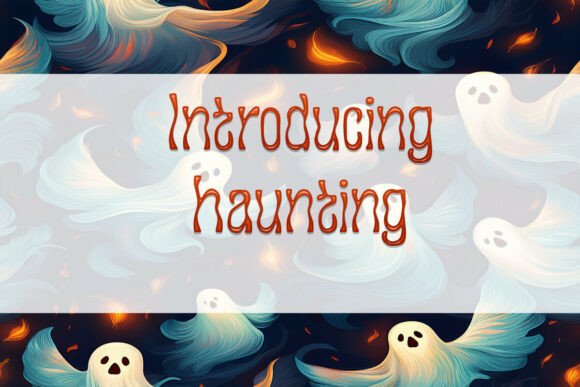
Unleash the Eerie Elegance: Discover the Transformative Charm of the “Haunting” Font
Are you a designer, crafter, or creative enthusiast looking to add a touch of uniqueness to your projects? Look no further than the “Haunting” font, a versatile and captivating typeface that can elevate your designs to new heights. In this article, we’ll delve into the world of the “Haunting” font, exploring its features, applications, and the creative possibilities it offers.
A Font that Casts a Spell
The “Haunting” font is a masterfully crafted typeface that exudes an otherworldly charm. Its distinctive design makes it perfect for a wide range of applications, from T-shirts and stickers to branding essentials and glossy magazines. With its eerie elegance, this font is sure to captivate your audience and leave a lasting impression.
One of the standout features of the “Haunting” font is its incredible versatility. Whether you’re a designer, crafter, or DIY enthusiast, this font can be used to create a wide range of projects, including:
- T-shirts and apparel: Add a touch of spooky chic to your T-shirt designs with the “Haunting” font.
- Stickers and decals: Create eye-catching stickers and decals that will make your designs stand out.
- Branding essentials: Use the “Haunting” font to create unique and memorable branding materials, such as logos, business cards, and letterheads.
- Magazines and publications: Add a touch of elegance and sophistication to your magazine designs with the “Haunting” font.
- Greeting cards and invitations: Create one-of-a-kind greeting cards and invitations that will leave a lasting impression.
- Cricut projects: Bring your Cricut projects to life with the “Haunting” font, perfect for paper crafting, vinyl cutting, and more.
- Poster designs and social media: Use the “Haunting” font to create striking poster designs and add an extra zing to your social media graphics.
Breathing Life into SVG Files
The “Haunting” font is also available in SVG files, making it easy to incorporate into your digital designs. SVG files are perfect for:
- Scalable graphics: The “Haunting” font can be scaled up or down without losing any quality, making it perfect for large-format printing or small-scale designs.
- Web design: Use the “Haunting” font in your web design projects, including website headers, buttons, and other graphical elements.
- Cricut projects: The “Haunting” font in SVG format is perfect for Cricut cutting machines, allowing you to create intricate designs and shapes.
Why Choose the “Haunting” Font?
With so many fonts available, why choose the “Haunting” font? Here are just a few reasons:
- Unique and distinctive: The “Haunting” font is unlike any other font on the market, offering a unique and captivating design that will set your projects apart.
- Versatile: This font can be used for a wide range of applications, from T-shirts to magazines, and more.
In conclusion, the “Haunting” font is a game-changer for designers, crafters, and creative enthusiasts. With its transformative charm, eerie elegance, and incredible versatility, this font is sure to elevate your designs to new heights. Whether you’re looking to create spooky T-shirt designs, captivating stickers, or memorable branding materials, the “Haunting” font is the perfect choice. So why wait? Immerse yourself in the world of the “Haunting” font and discover a new world of creative possibilities.